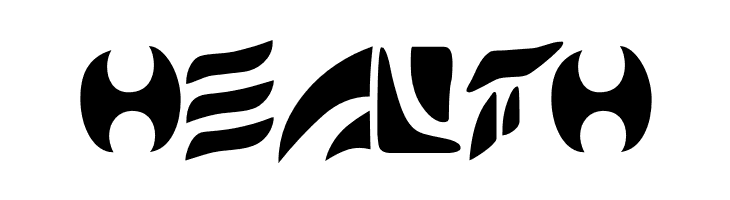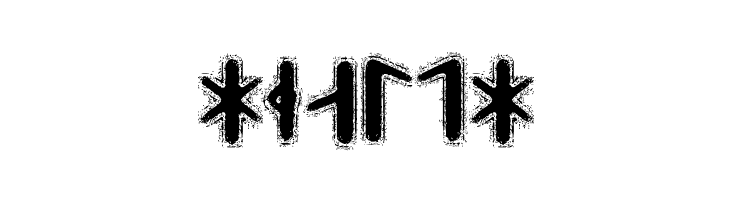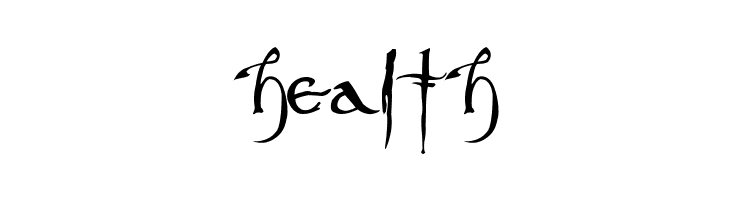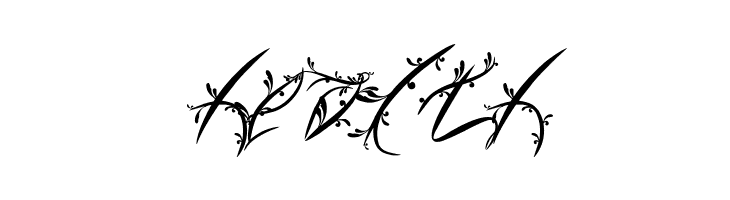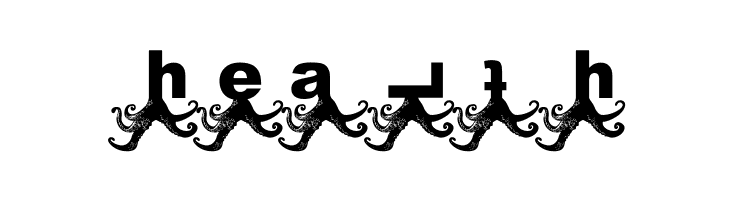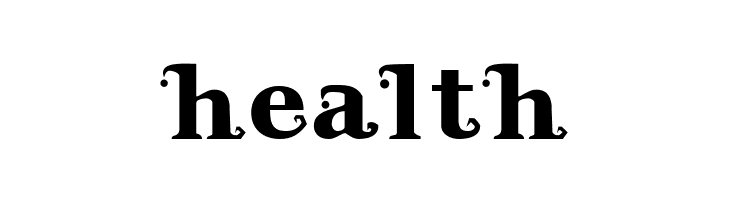
A bold, abstract font with tribal-inspired curves and angles.
A decorative, runic-inspired font with a bold, distressed texture.
A whimsical and artistic font with swirling, elongated strokes and decorative curls.
A whimsical, nature-inspired font with vine-like flourishes and an enchanted aesthetic.
A whimsical and ornate font with decorative embellishments and a mystical style.
A decorative font with leaf and vine embellishments, offering a whimsical, organic style.